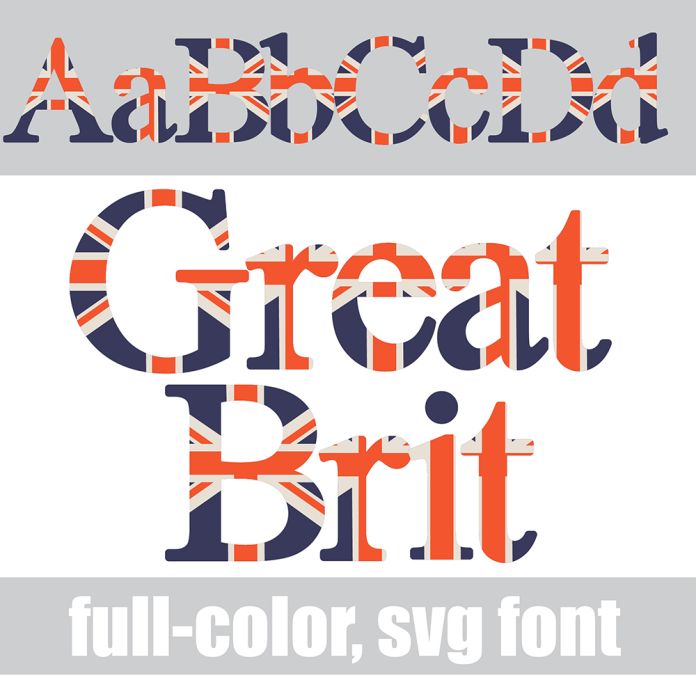
This full-color font features the British flag in a classic serif font. There is an alt case with additional colors you can access through your system's character map. This font works best for titles, displays, posters and more. Please note color fonts will show as black in non compatible programs. This font type is compatible with Silhouette Studio.